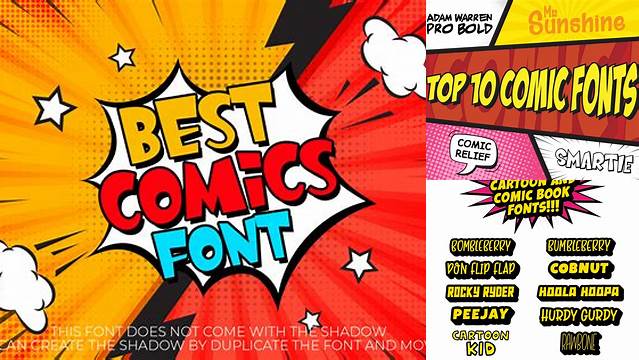
Explore Fun Comic Fonts At 1001Fonts.com
Hey everyone! Ever wanted to spice up your designs with some super cool, fun fonts? Well, you're in luck! Today, we're diving headfirst into the awesome world of www 1001fonts com comic fonts html, exploring all the amazing options available. Whether you're a seasoned graphic designer, a newbie looking to add some flair, or just a comic book enthusiast, this is going to be a blast. Let's get started, shall we?
H2: Discovering the Best Comic Fonts at 1001Fonts
Alright, so you're on the hunt for the perfect comic font. Good choice! Comic fonts are an incredible way to inject personality and excitement into your projects. They're perfect for everything from webcomics and social media graphics to posters and presentations. But where do you begin? Well, head on over to www 1001fonts com comic fonts html and you'll find a treasure trove waiting to be discovered. 1001Fonts is a fantastic resource for finding a huge variety of fonts, and their comic font selection is particularly impressive. You'll find fonts that mimic the styles of classic comic books, modern graphic novels, and everything in between. The site is super easy to navigate, with categories and filters to help you narrow down your search. You can even preview the fonts right there on the site, so you can see exactly how they'll look with your text. This makes it easy to compare different styles and find the perfect fit for your project. Plus, many of the fonts are available for free, making it an accessible option for everyone, regardless of budget. The website has a clean interface, which makes it easy to browse the fonts, with clear previews and download links. You'll be able to find a font that complements any design. Using these fonts can greatly improve your visual communication in terms of making it exciting, captivating, and easy to understand. The wide selection of fonts ensures that you'll find the exact style that matches your preferences and project needs. It's really easy to make your content pop! So, prepare to explore and find some awesome fonts!
H2: Why Comic Fonts Are Perfect for Your Projects
Okay, so why should you even bother with comic fonts in the first place? Well, there are tons of benefits. First and foremost, they're fun! Comic fonts instantly add a playful and engaging element to your designs. They catch the eye and make your content more memorable. Think about it: when you see a font that looks like it came straight from a comic book, you're immediately drawn in. This is especially true for younger audiences, who are often big fans of comics and graphic novels. Comic fonts can also be a great way to establish a specific tone or mood. A bold, dynamic font can convey excitement and energy, while a more whimsical font might be better suited for a lighthearted project. They're incredibly versatile. Whether you're creating a website, designing a logo, or making social media posts, a comic font can add a unique touch that sets you apart from the crowd. They work great for headlines, titles, and even body text. This is because of how they can grab a reader's attention from the very beginning. The style can also increase readability as the character designs are often distinct and easily discernible. Comic fonts can add a whole other dimension to the content and make it more fun! The ability to create a unique experience for your readers is also great. Furthermore, they are not just for comics. They're used in many different forms of content, and you can incorporate them in many ways.
H2: Top Comic Font Categories to Explore at 1001Fonts
Now, let's dive into the exciting world of comic font categories you'll find at www 1001fonts com comic fonts html. This will help you narrow down your choices and find the perfect style for your needs. You'll discover a variety of categories, each with its own unique character. One popular category is the classic comic book style. These fonts often mimic the hand-drawn lettering found in vintage comics, with bold strokes, rounded edges, and a sense of energy. These fonts are perfect for creating a nostalgic feel or paying homage to the classic comic book era. Another category to check out is the modern comic font. These fonts are designed with a more contemporary aesthetic. They often feature clean lines, geometric shapes, and a sleek, polished look. These are fantastic choices for modern webcomics, graphic novels, or any project that requires a more up-to-date style. There is also a category for action fonts. These fonts bring a sense of motion, with dynamic shapes, and exaggerated letterforms. You will also see the handwritten fonts, these fonts feature a more personal touch. Some of these fonts appear as though they are penned by hand. Another great option is the bubble fonts. These fonts have a round, bouncy look, reminiscent of speech bubbles in comics. So explore and have fun discovering the endless possibilities. The website lets you explore the different font styles easily, allowing you to filter and find something new.
H2: Tips for Choosing the Right Comic Font
Choosing the right comic font can be a tricky task, but don't sweat it! Here are some tips to help you make the best decision for your project. First, consider your audience. Who are you trying to reach with your design? If you're targeting kids or young adults, a fun, playful font might be a great choice. If you're aiming for a more mature audience, you might want to opt for a more sophisticated style. Think about the overall tone and message of your design. Do you want to convey excitement, humor, or seriousness? The font you choose should complement this tone. Take the font into account to make sure it is readable. Consider how the font will look in different sizes and on different backgrounds. Some fonts are better suited for headlines, while others work well for body text. Don't be afraid to experiment and try out different fonts. Preview your text using the font to see how it looks with your content. Make sure to check out all the styles. Download the fonts that you like and test them out in your design software. This will give you a better idea of how the font will look in your final project. Make sure the design is easy to read and easy on the eyes! Keep in mind these points, and you will be able to make the best choice for your project. The right font helps elevate your content!